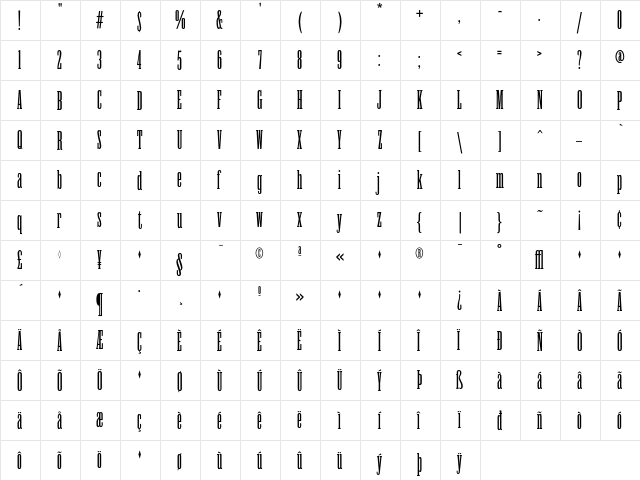
AntiqueCondensed Two
Design Context for AntiqueCondensed Typeface
AntiqueCondensed wears its vintage influences proudly, with letterforms that recall mid-century signage, classic packaging, and nostalgia-driven design.
Ideal for diner signage, record shop branding, 70s/80s-themed projects, and heritage product labels.
Font Pairing: Combine AntiqueCondensed with a simple slab or neutral sans — period-accurate companions reinforce the vintage feel without competing for attention.
Pro Tip: Lean into AntiqueCondensed's period character by pairing it with aged paper textures, muted colour palettes, and vintage illustration styles.